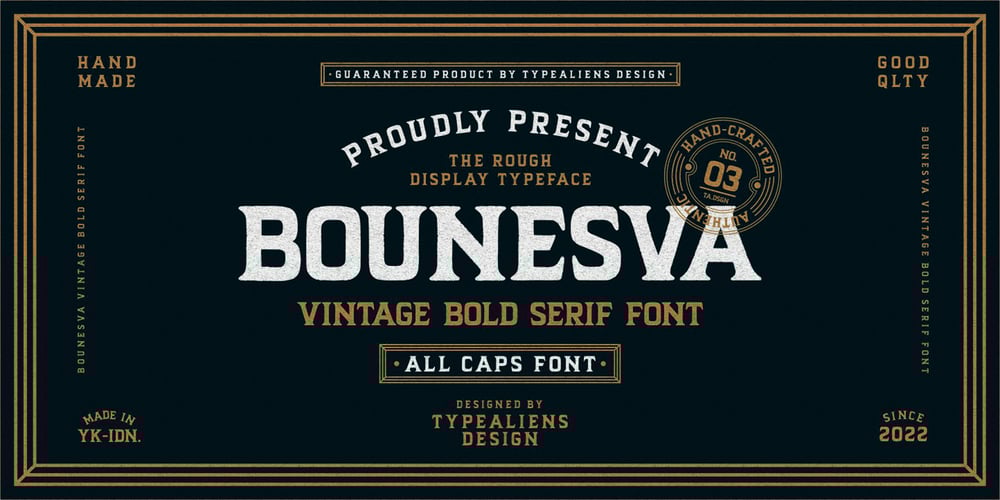
Bounesva Font Family was designed by Ilham Wahyu and published by Ilhamtaro. Bounesva contains 1 styles and family package options. BOUNESVA is a bold, all-caps serif font, perfect for motorcycle and vintage-related designs. A fairly simple font with not much variation from the serifs of the past. With only a thick feature and the hook is a little fat. This font is also suitable for headlines or short texts not for paragraphs. In addition to vintage motorcycle designs, this font is also suitable for modern designs.To enable the OpenType Stylistic alternates, you need a program that supports OpenType features such as Adobe Illustrator CS, Adobe Indesign & CorelDraw X6-X7. Guides to access all alternates glyphs : http://adobe.ly/1m1fn4YCheers!